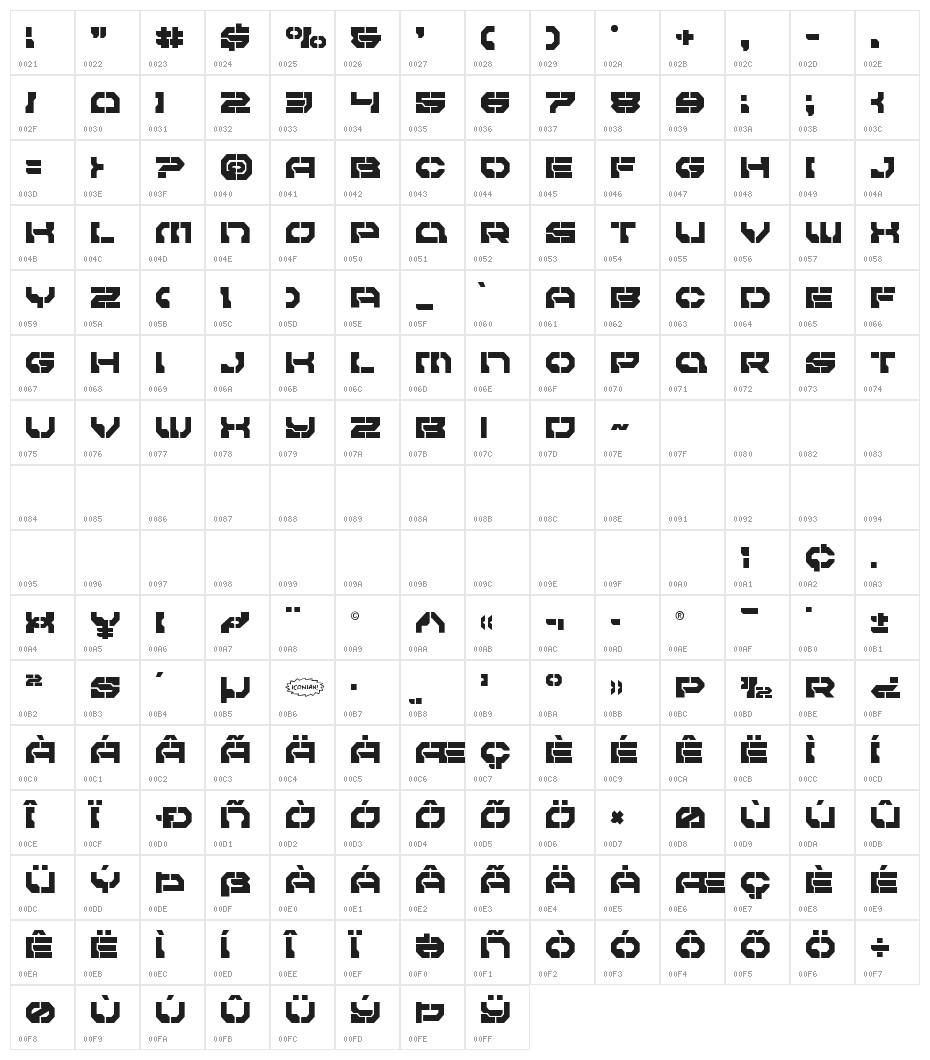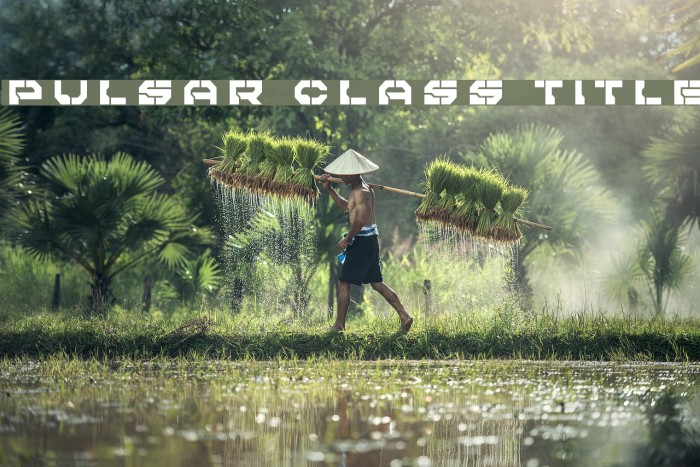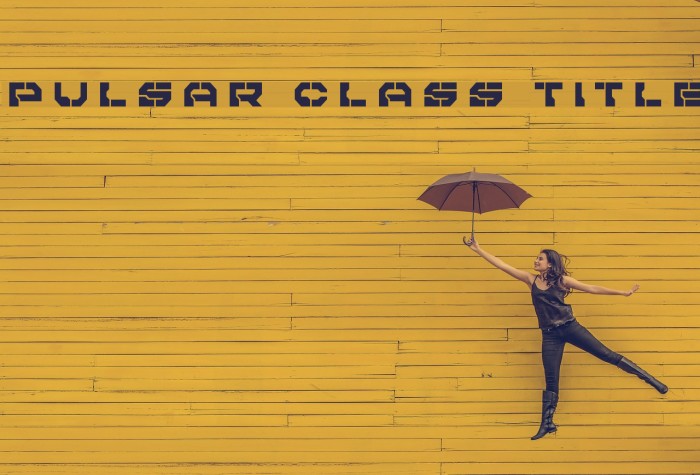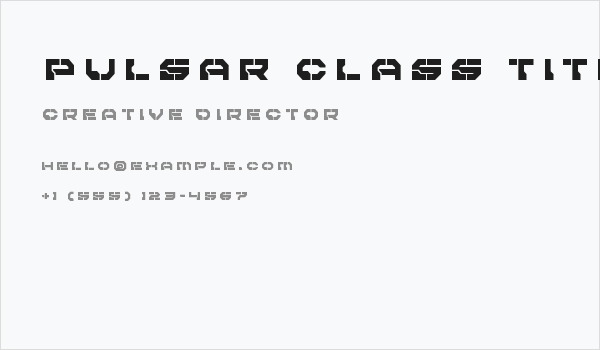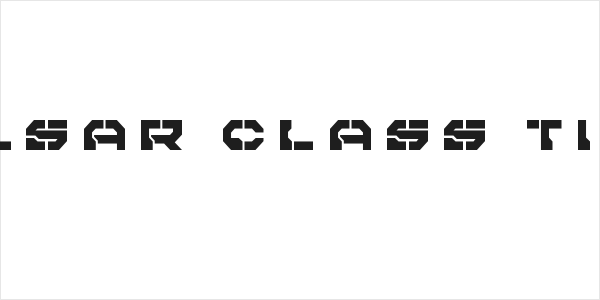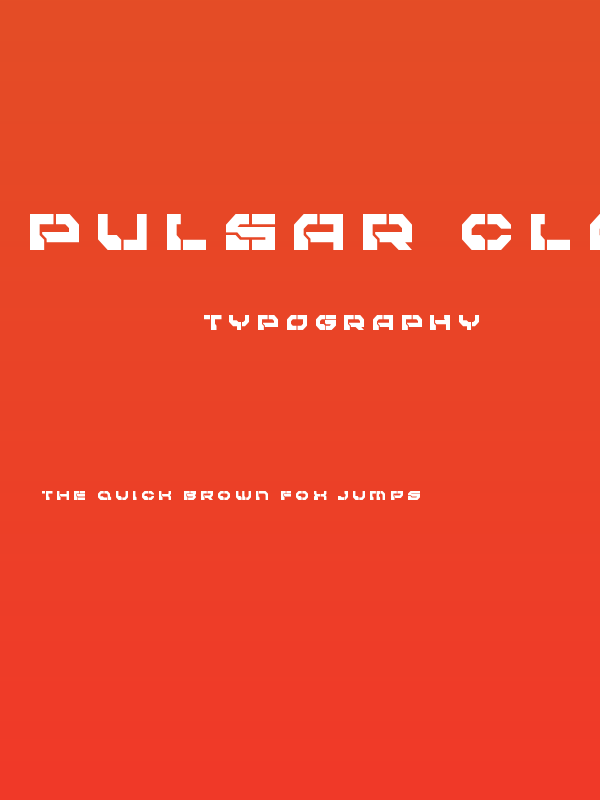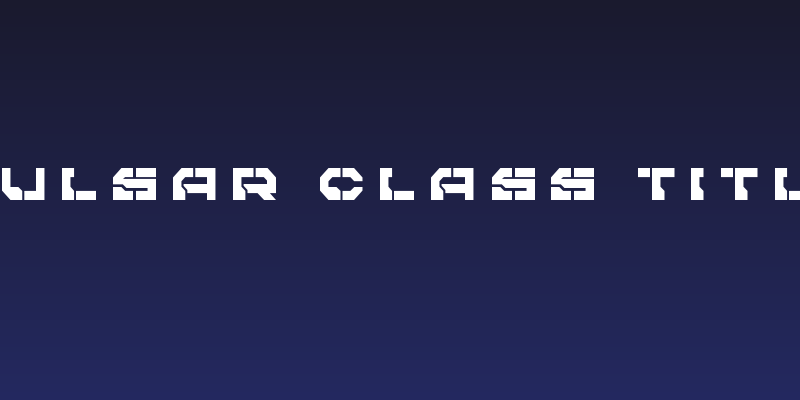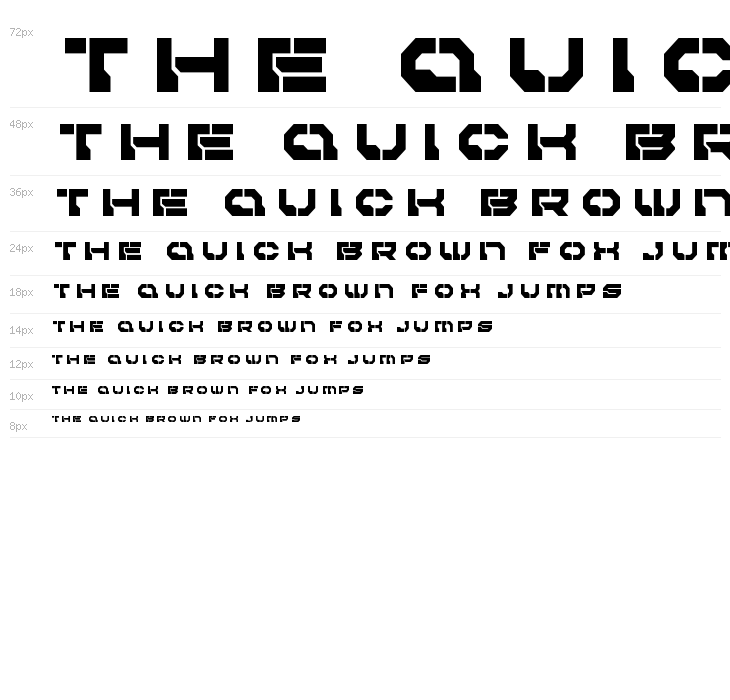
Pulsar Class Title Font
Pulsar Class Title Description
This font features a bold, geometric design with a futuristic and industrial feel. The characters are constructed with sharp angles and cut-out sections, creating a sense of movement and modernity. The uppercase and lowercase letters maintain a consistent style, while the numbers and special characters complement the overall aesthetic. The font's unique structure makes it stand out, ideal for projects that require a strong visual impact.
| Overall Style | Futuristic, Industrial |
| Proposed Projects | Ideal for sci-fi themed designs, technology branding, video game titles, and modern posters. |